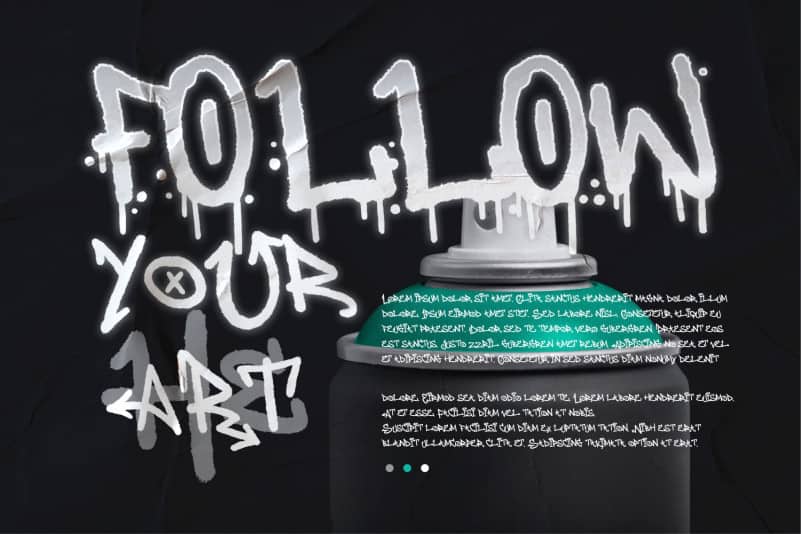
Dear Dorf Display Font is a cool, urban styled display font. Expertly designed to make your creation look out of this world, this font will look gorgeous on a variety of ideas.